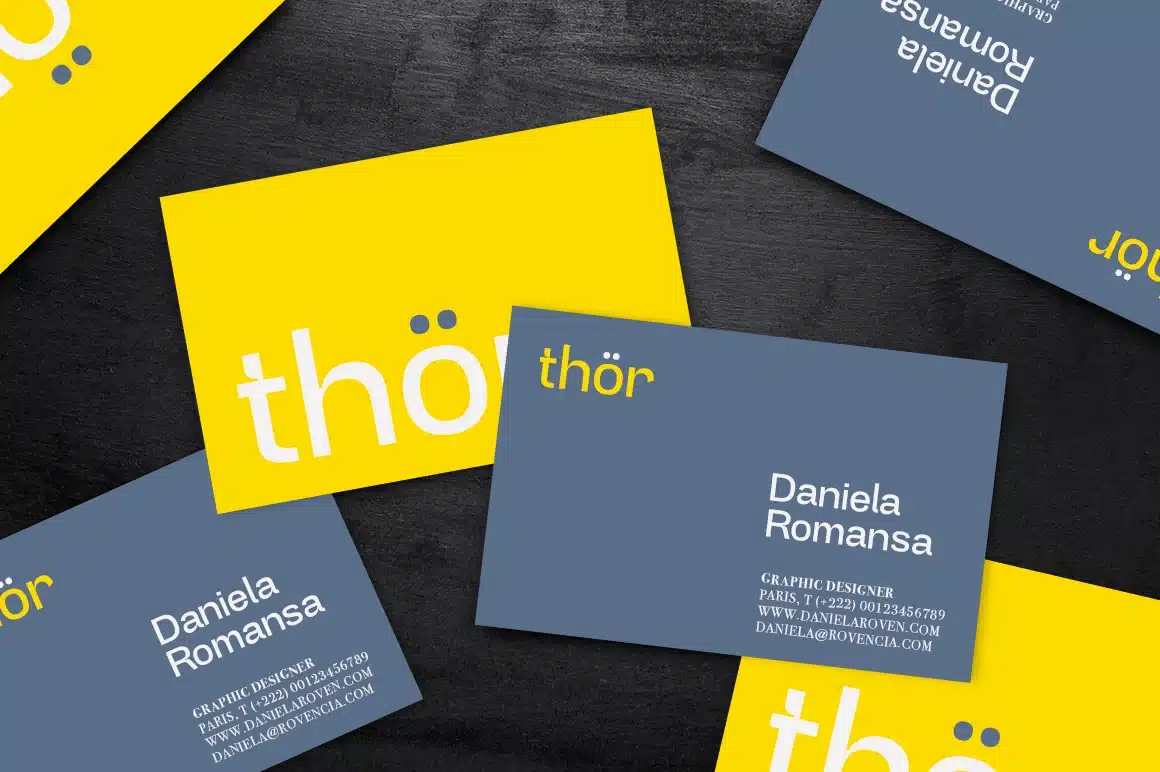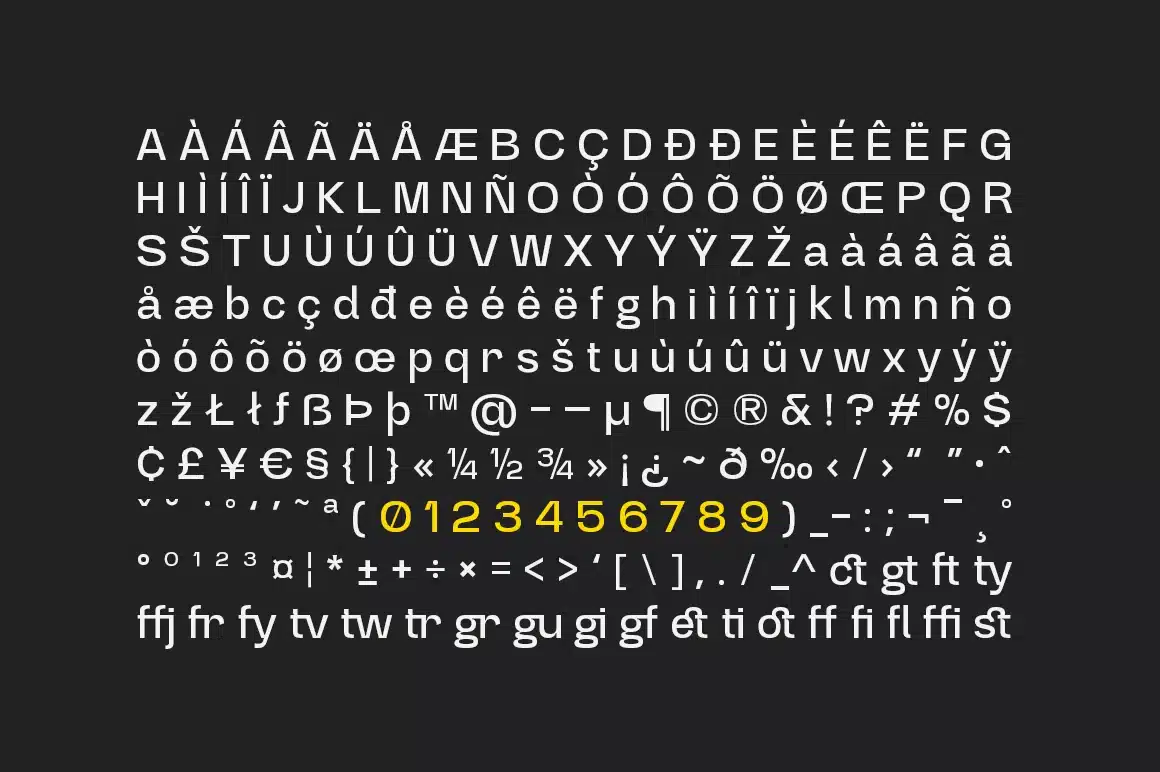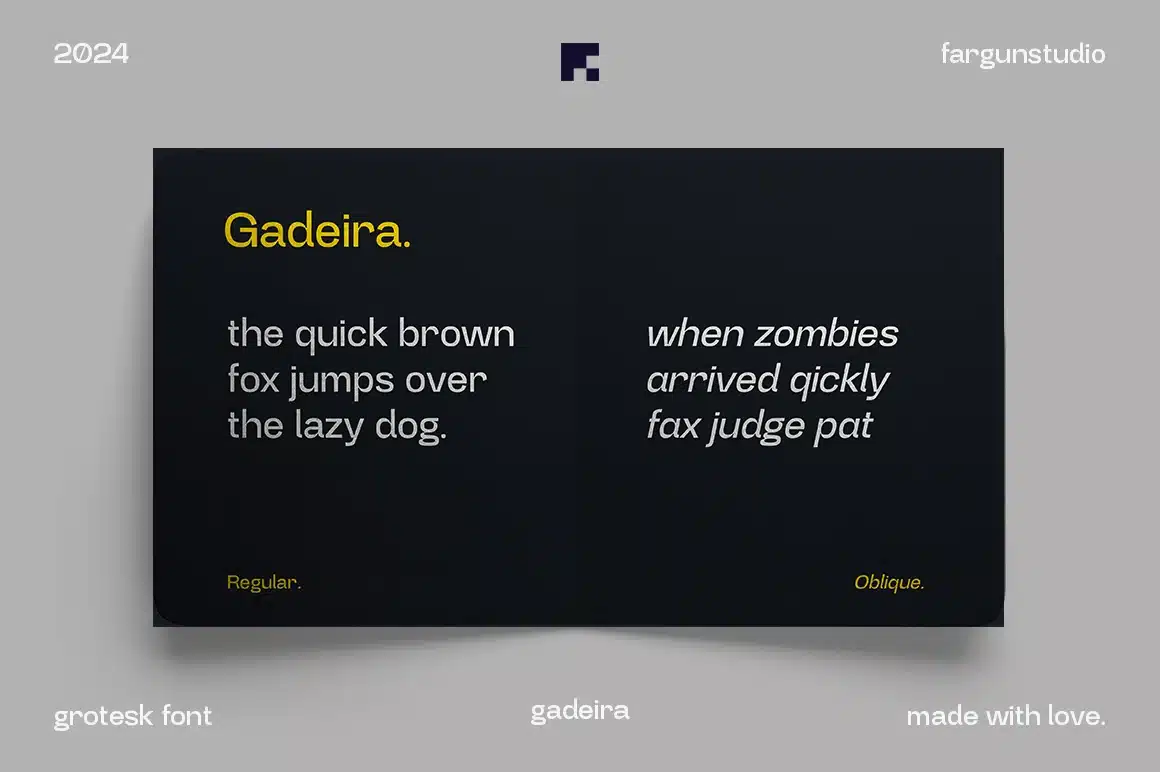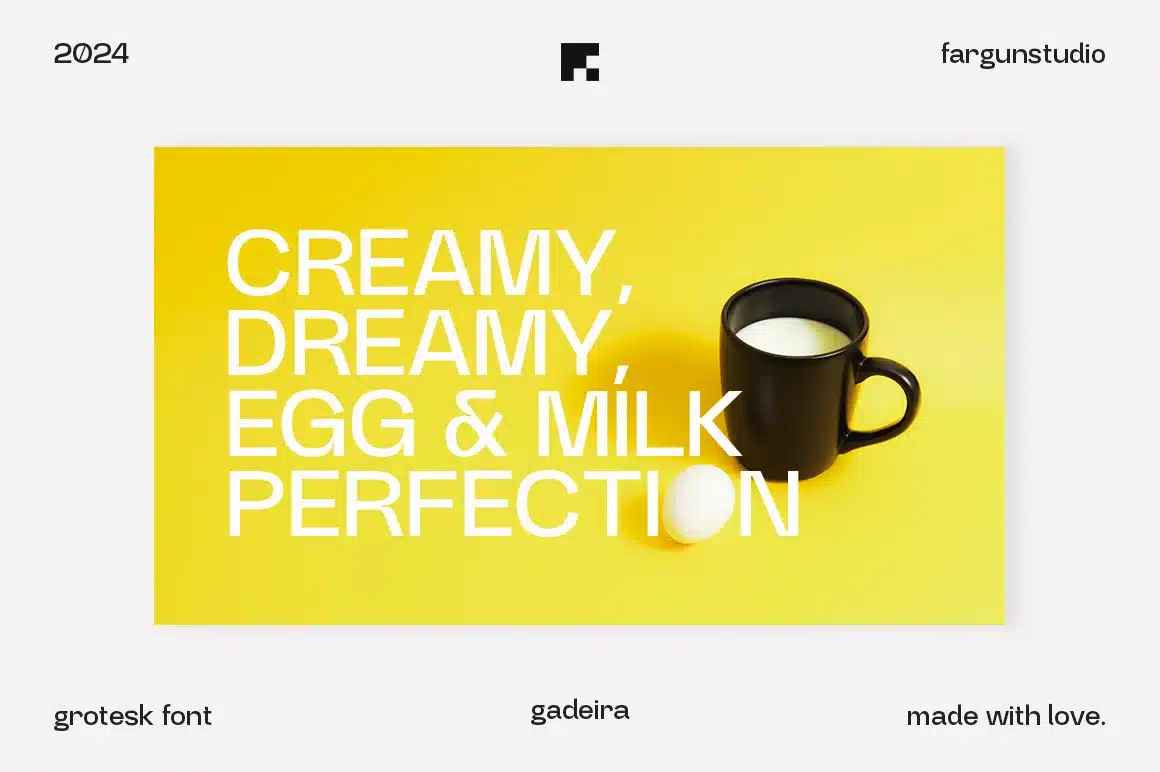
Gadeira Font
Gadeira seamlessly blends the timeless appeal of mid-century modern design with the striking character of bold inktraps. Drawing inspiration from the precise geometry and clean forms movement, along with the iconic lowercase shapes of Futura, this typeface represents a perfect balance of vintage charm and modern innovation.
Enhancing its adaptability, Gadeira includes alternate glyphs available through OpenType stylistic sets, offering designers greater flexibility to craft expressive and dynamic visuals for any creative endeavor.